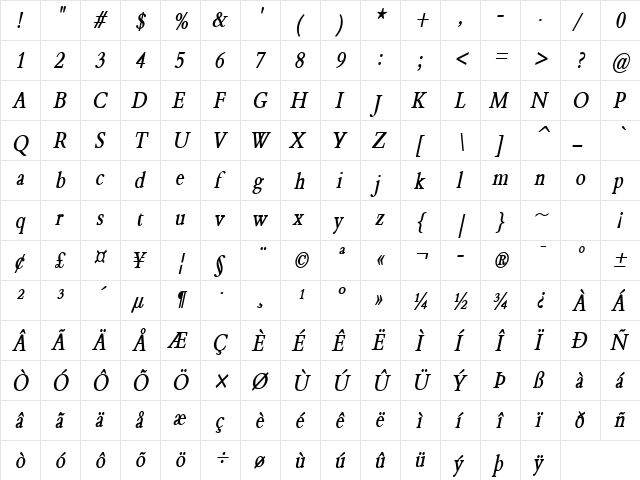
Nadine 2 Thin BoldItalic
Design Context for Nadine 2 Thin Typeface
Nadine 2 Thin is a composed and adaptable typeface that performs quietly and consistently across a wide range of design contexts. The slanted form adds forward momentum and visual energy. The heavy weight commands attention and anchors typographic hierarchies.